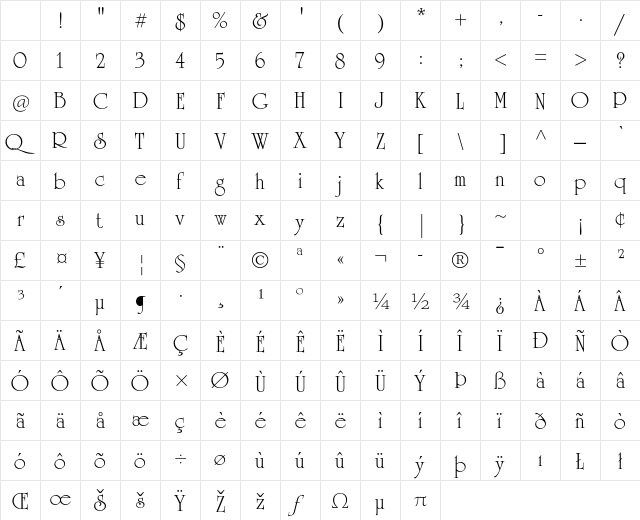
Complete University Std Roman glyph index. Displaying only characters natively supported by University Std Roman font.
University Std is a composed and adaptable typeface that performs quietly and consistently across a wide range of design contexts.